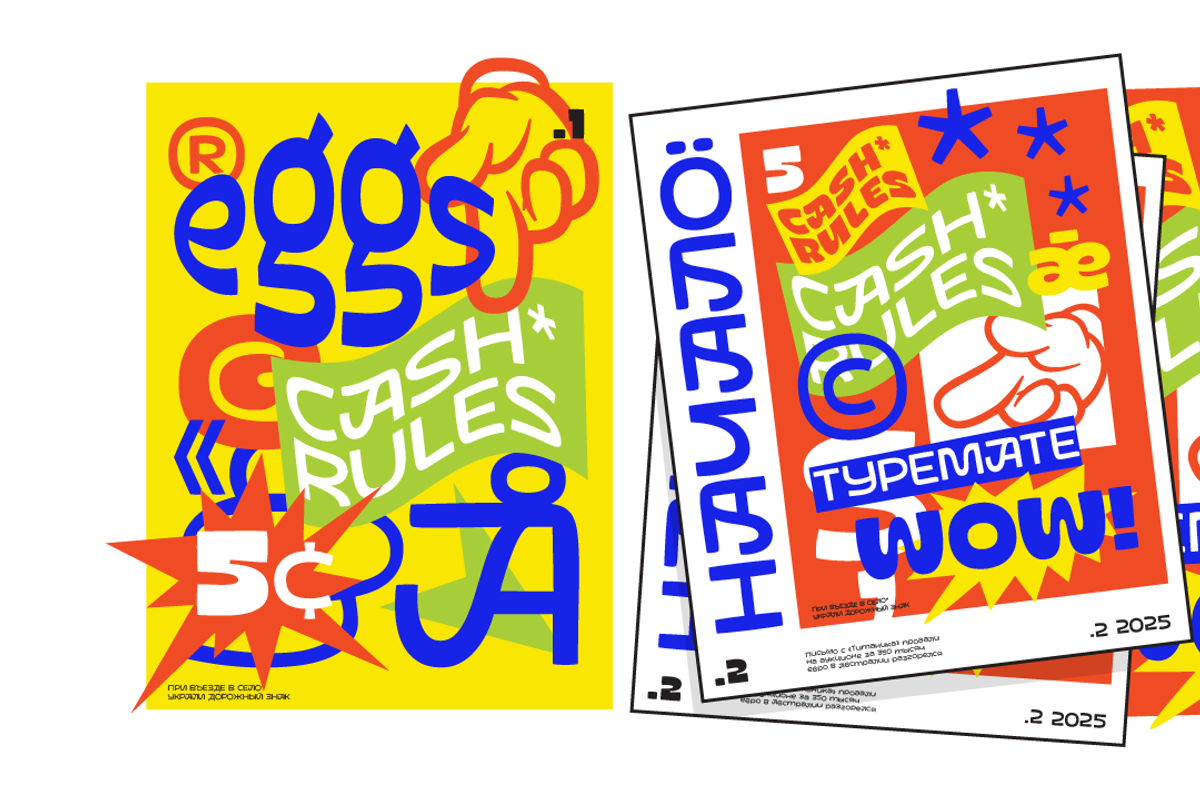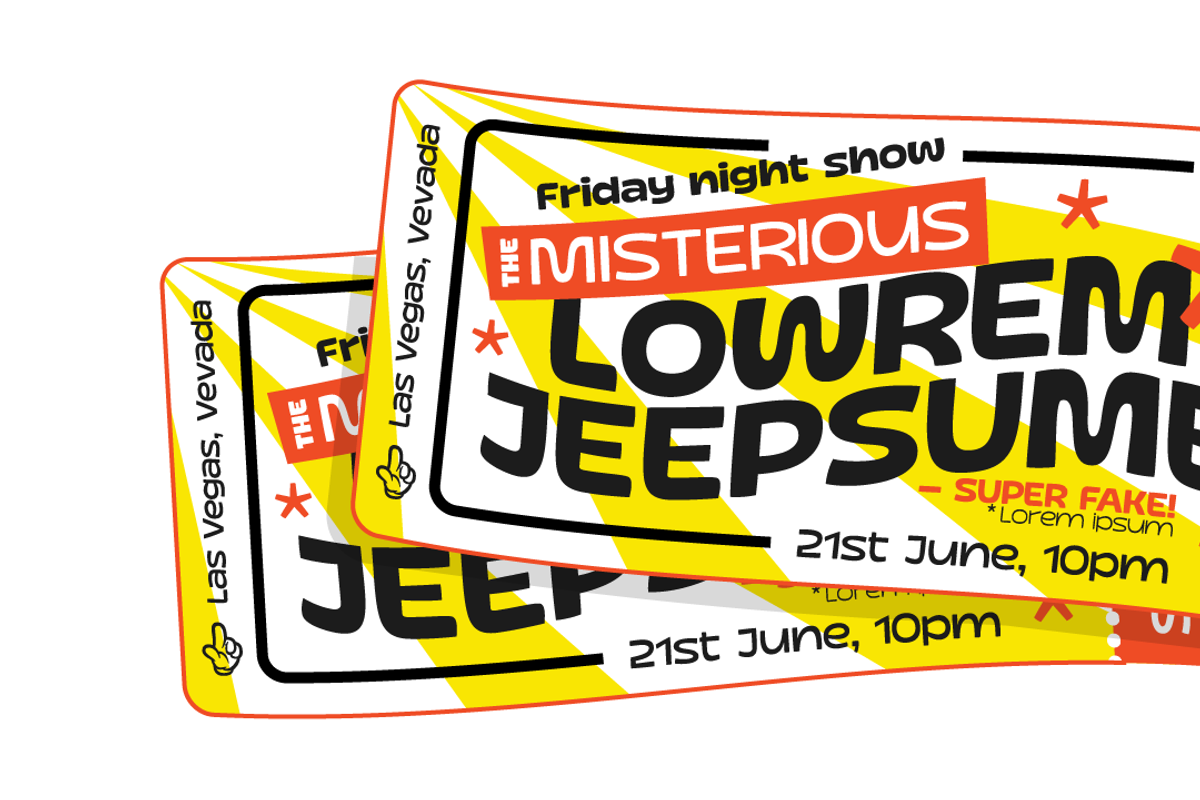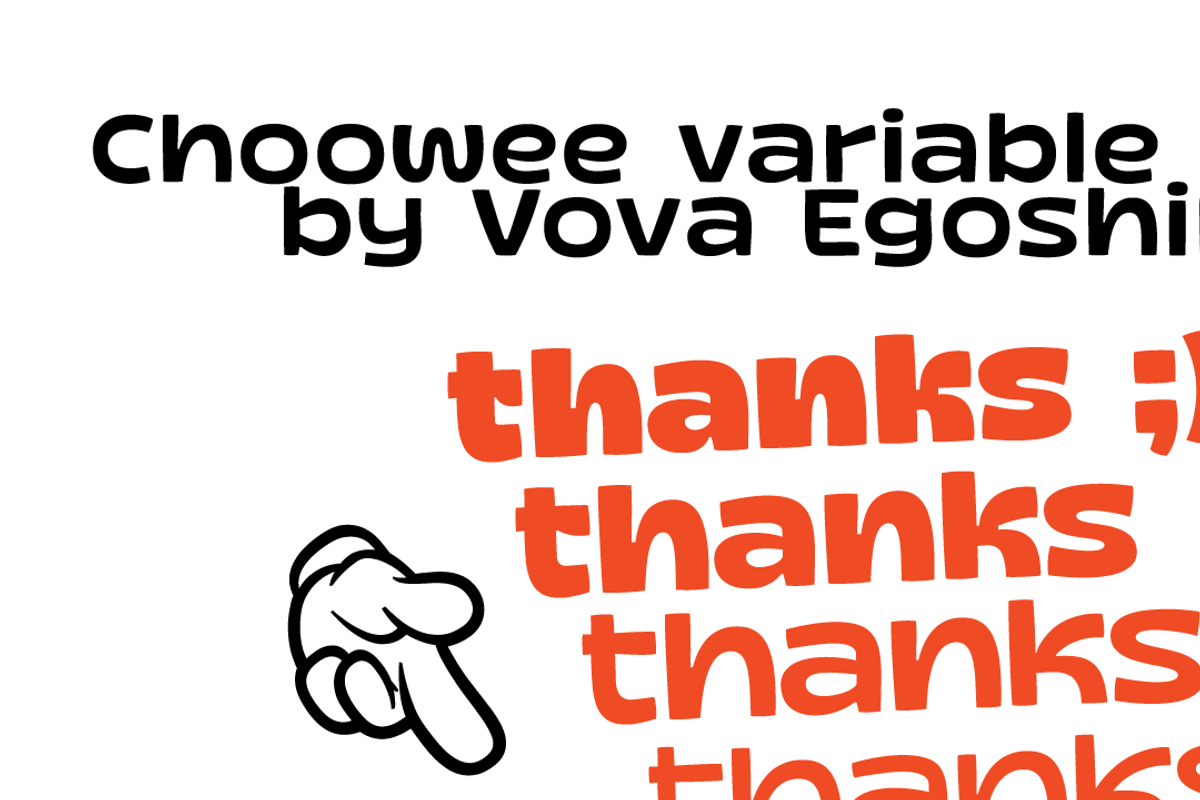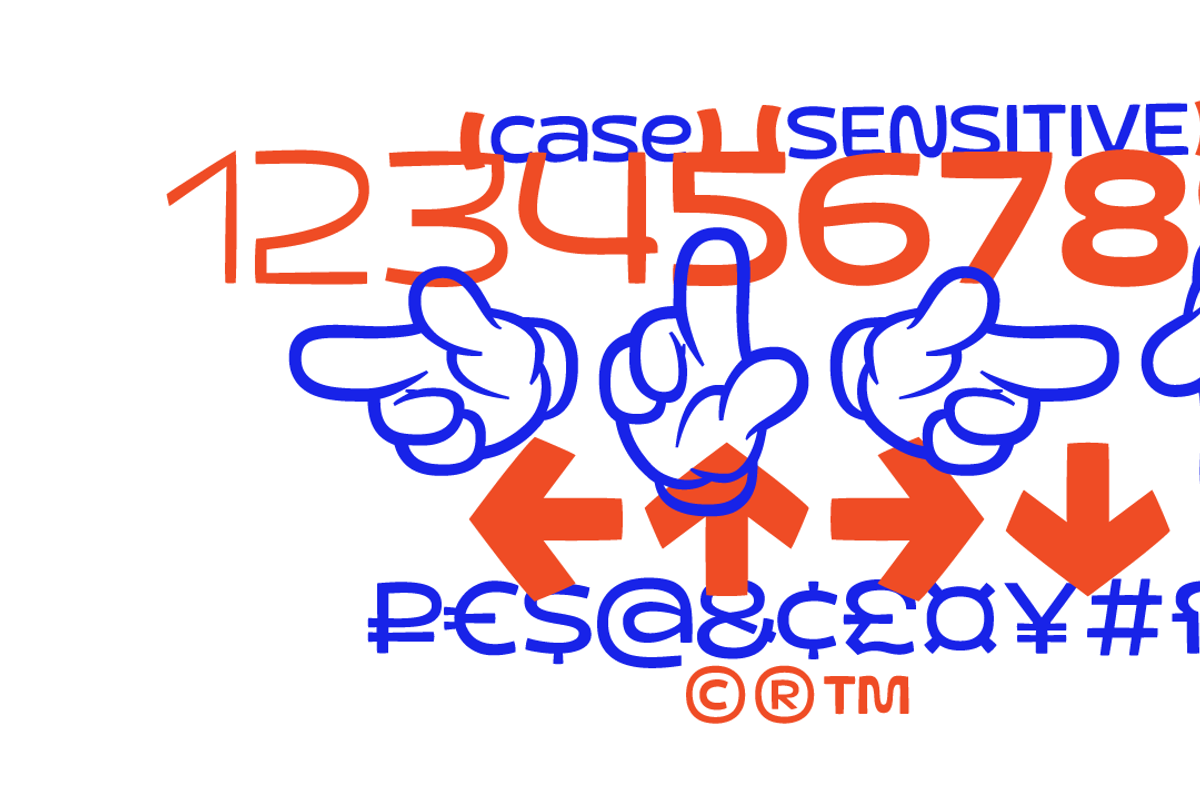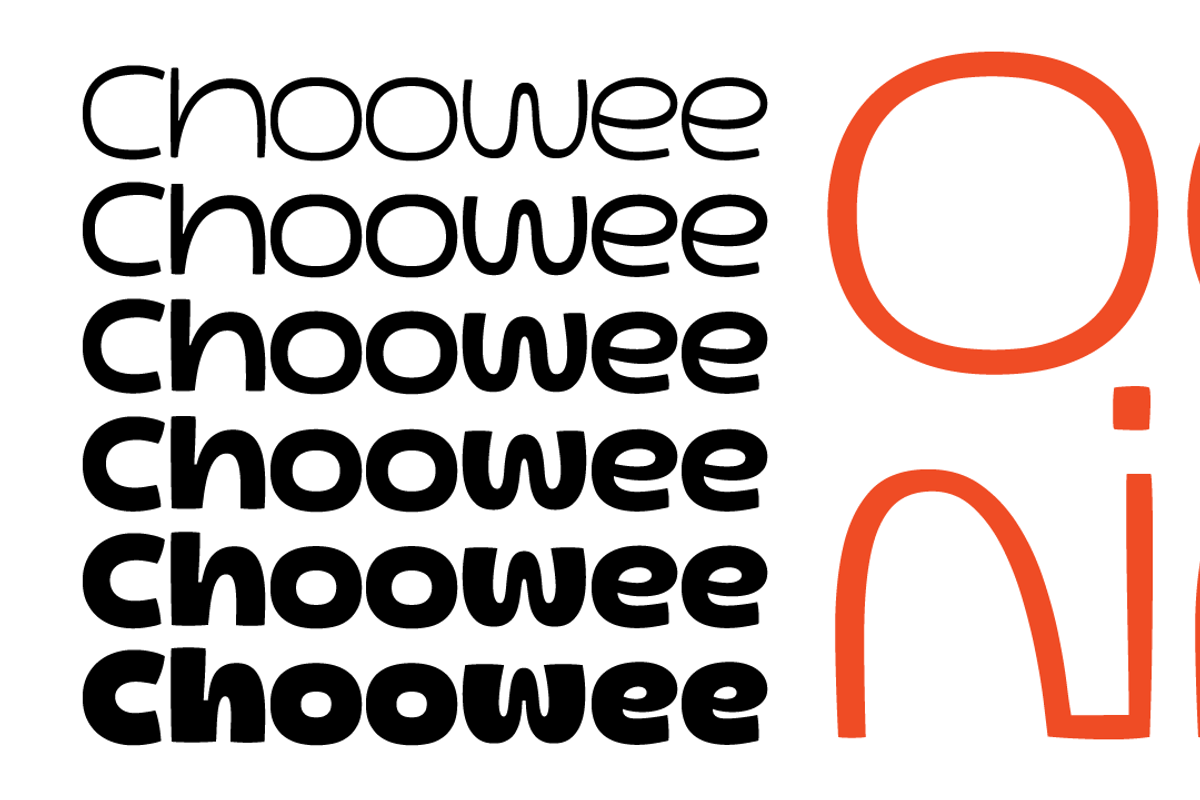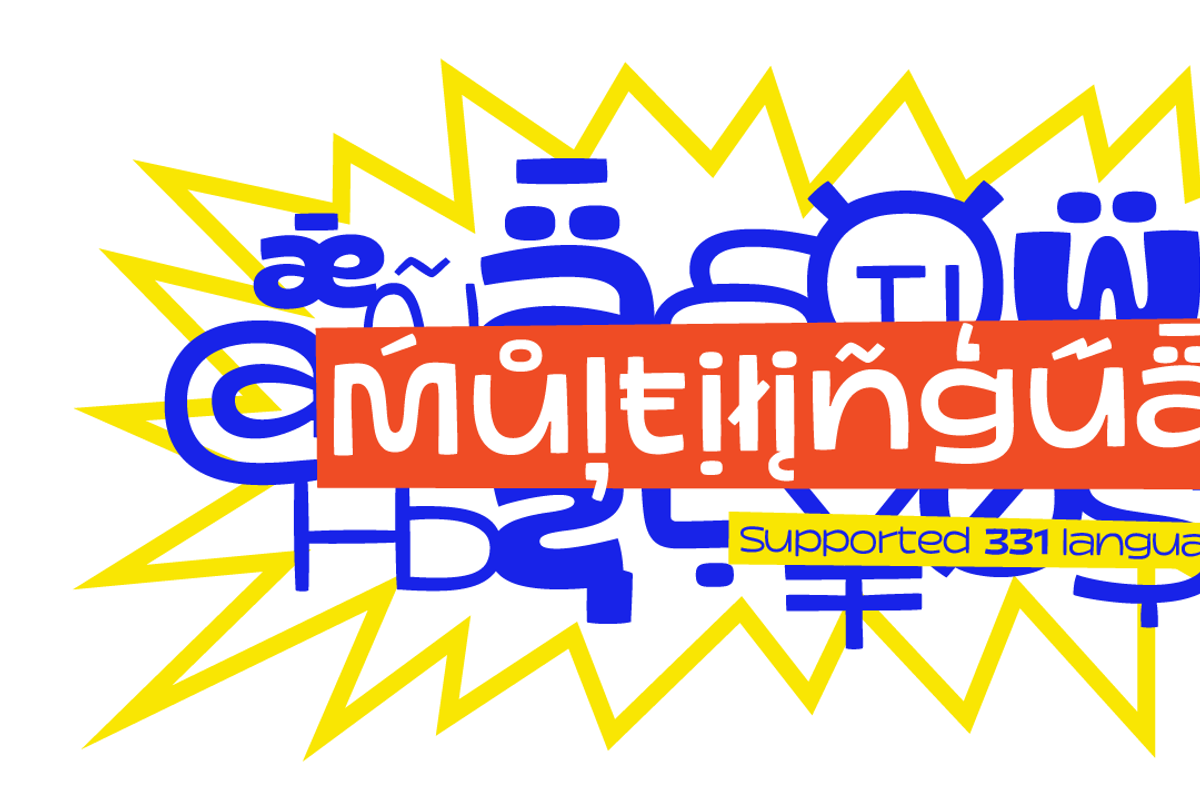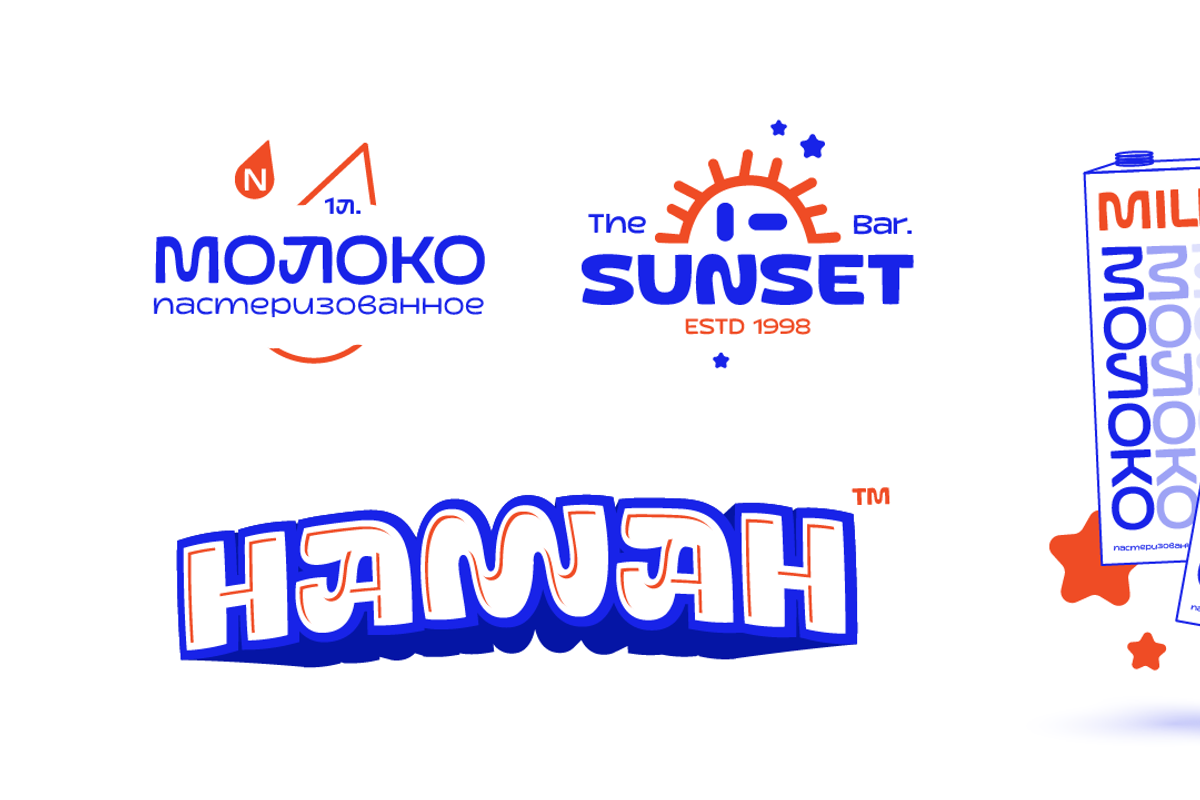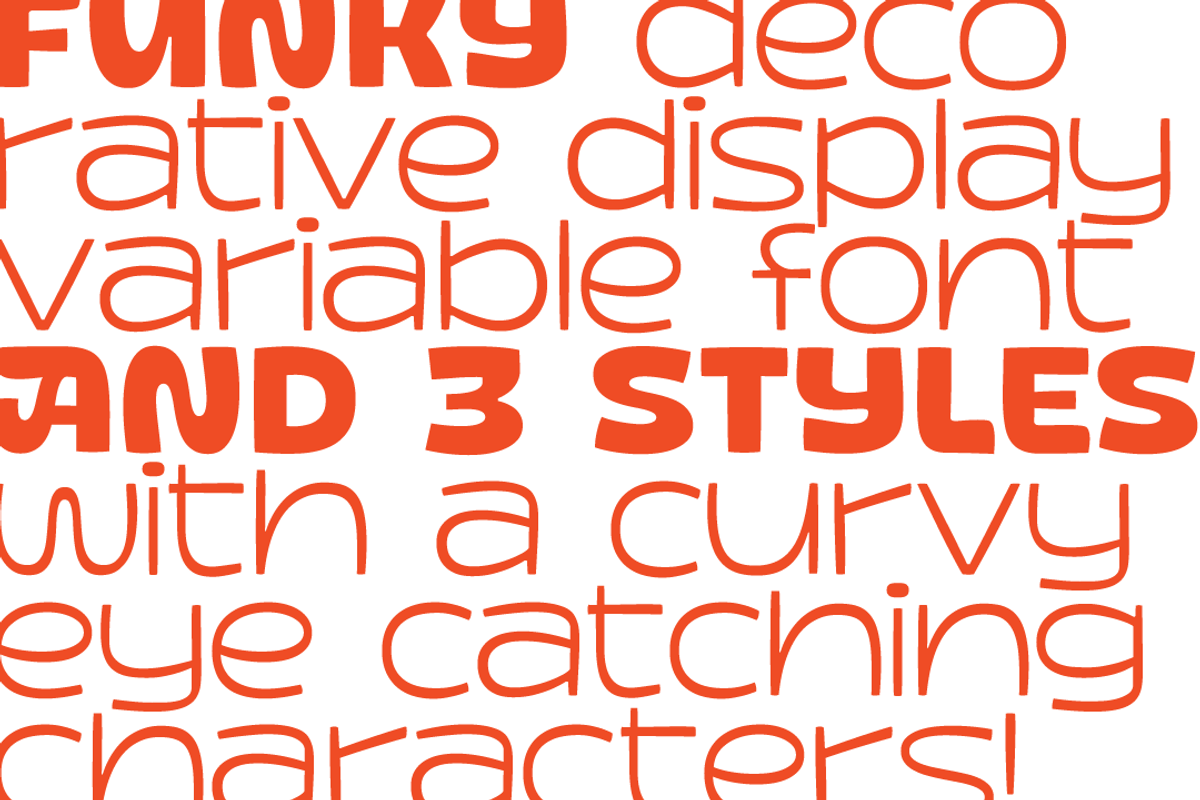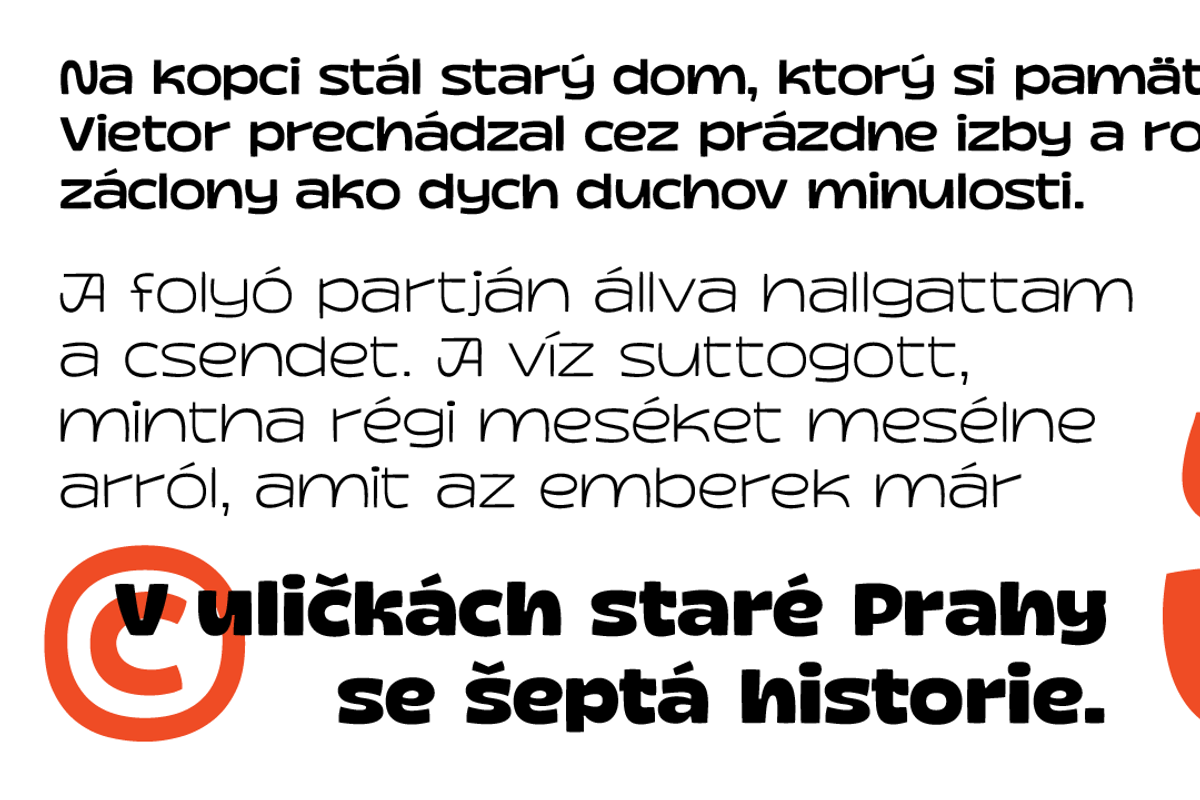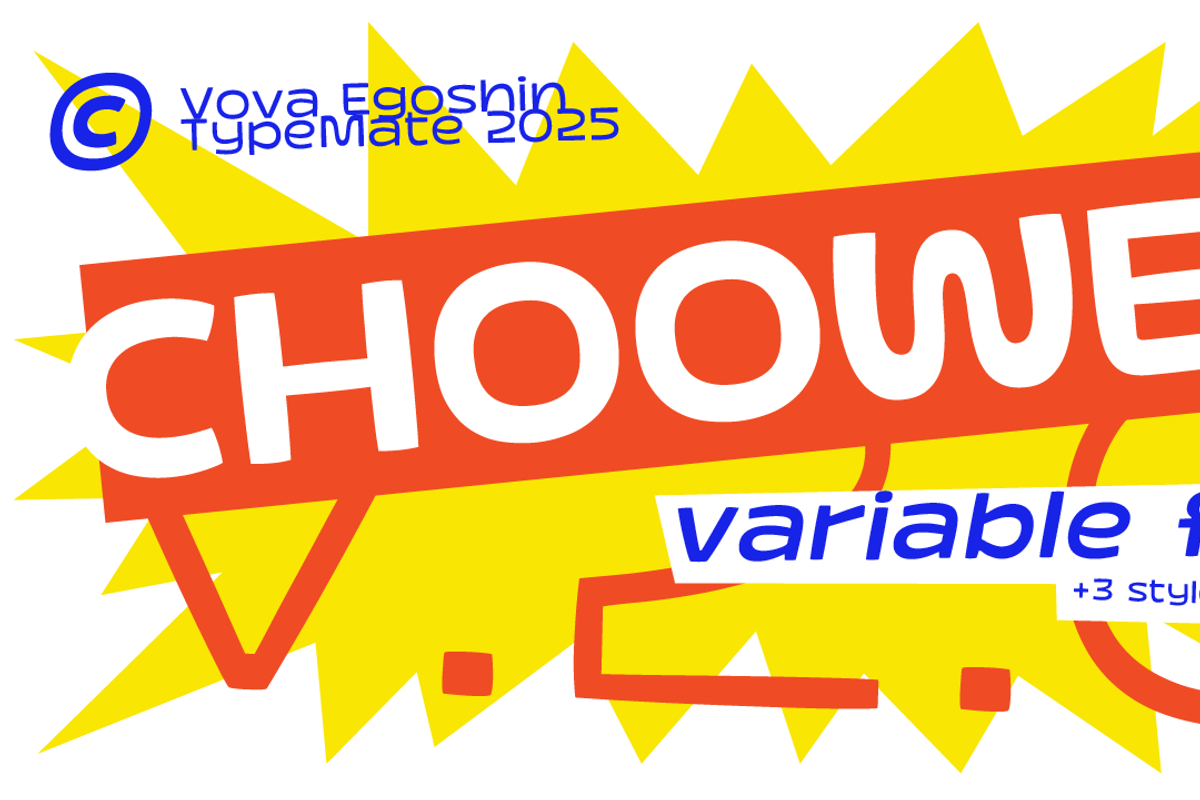
Choowee Variable
CHOOWEE VARIABLE
Funky decorative display variable font with a curvy eye catching character.
Choowee can solve many graphical problems. Features and alternates add personality and let you create unique logos, sick graphic identitys and stunning headlines! Package designs for food or any kind of products will be super cool. Posters or music covers. Prints on sweatshirts or t-shirts. Children’s book-covers or comics...
And many more with variable option ;)
Supported 330+ languages: cyrillic, cyrillic extended, latin, latin extended... 1000+ glyphs!
Features: ligatures, alternates, case sensitive punctuation.